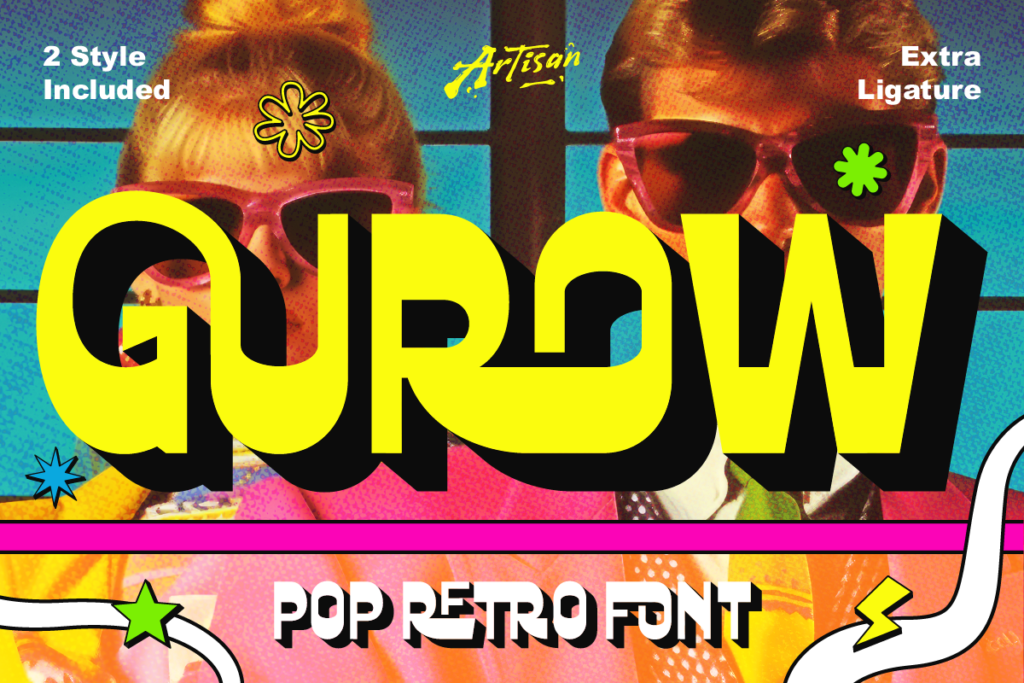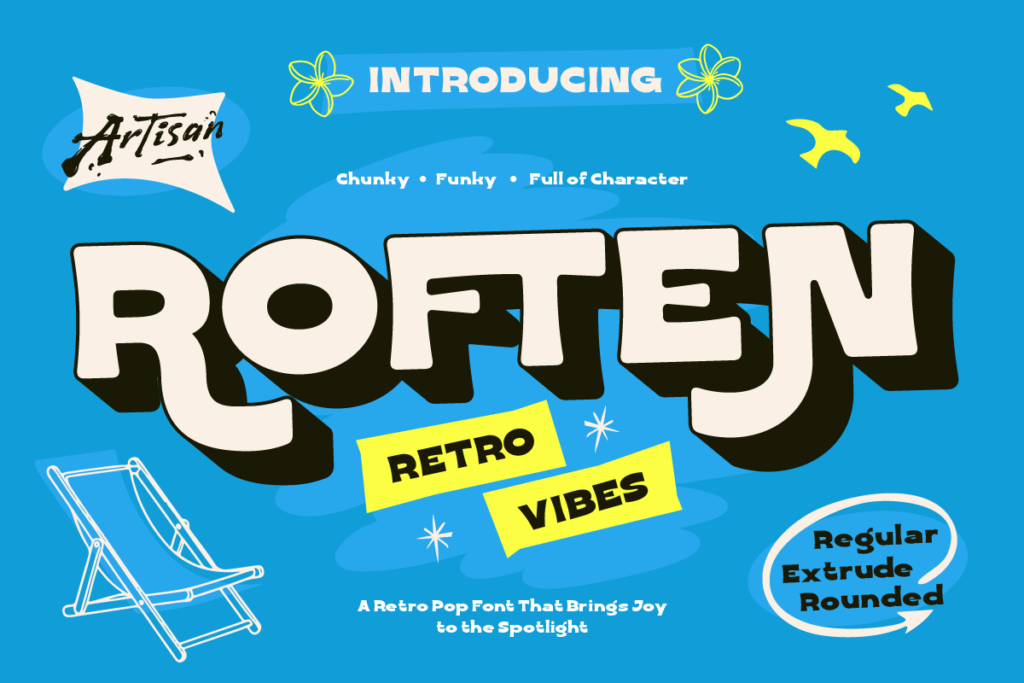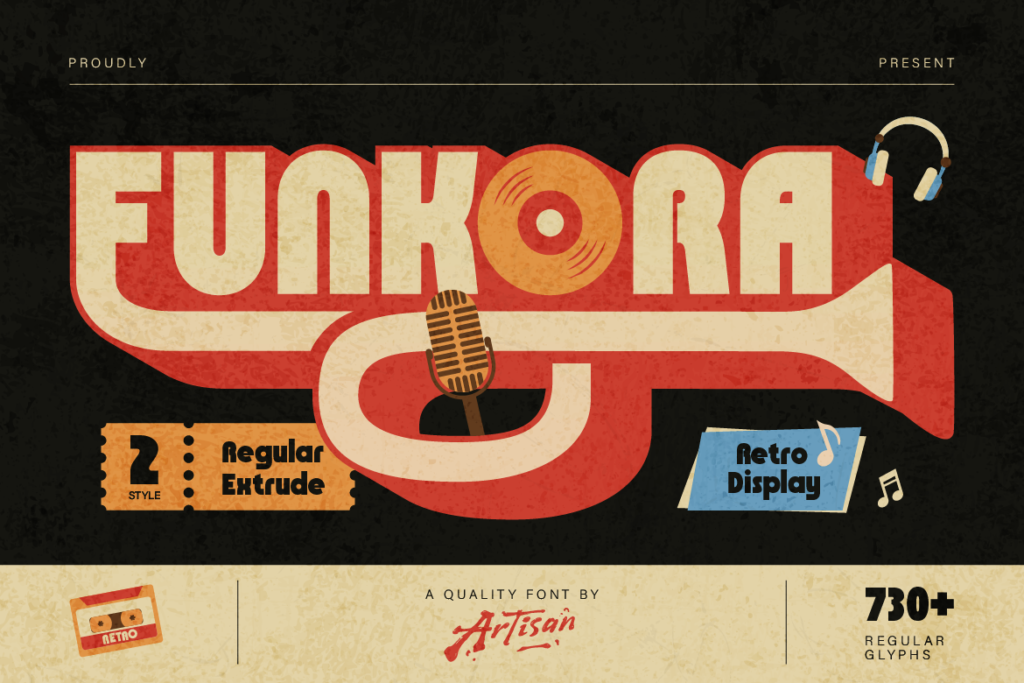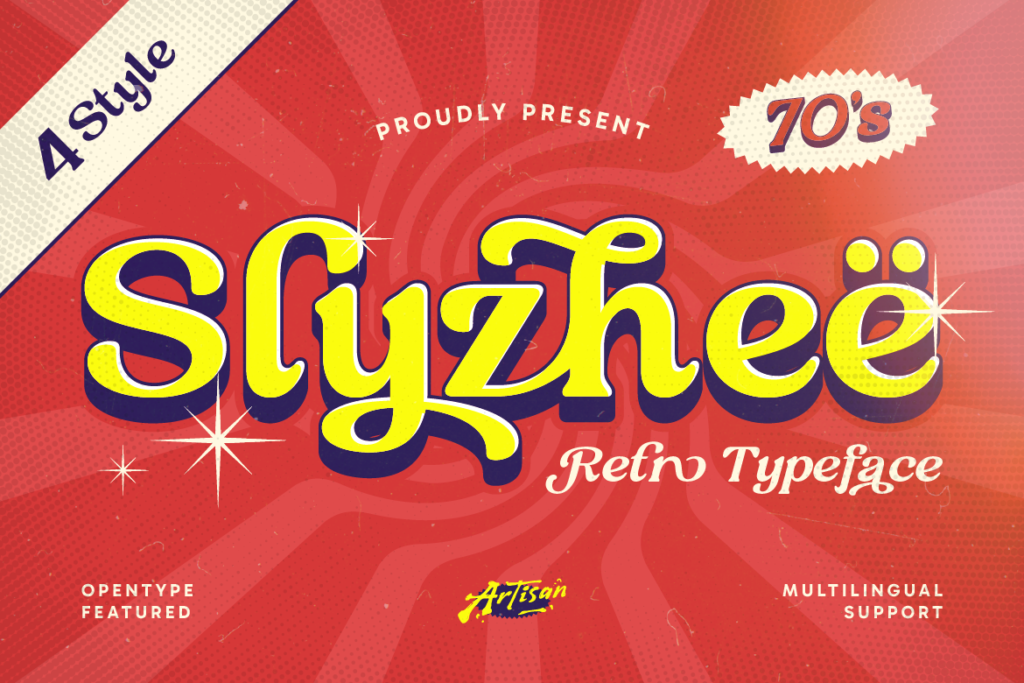
5 Retro & Groovy Pop Fonts from Artisan Font to Bring Back the Good Vibes
There’s a reason retro design keeps coming back, it’s fun, it’s nostalgic, and it instantly adds personality to whatever it touches. Groovy pop fonts are all about bold colors, playful curves, and that feel-good energy from decades past, and they’re a fantastic way to make your design pop (literally).
Here are 5 fonts from Artisan Font to help you channel that retro, groovy charm.
1. Gurow
Gurow is a pop retro font with bold, bouncy letterforms that feel straight out of a vintage postcard or an old film camera ad. It’s fun, nostalgic, and full of personality.
Great for: retro branding, event posters, packaging, and playful social media graphics.
2. Roften
Roften brings that classic retro vibes energy with a bold, extruded look that adds depth and dimension to your headlines. It’s got just enough edge to feel current while still keeping that vintage soul.
Great for: posters, branding, retro-themed merchandise, and bold headline text.
3. Slyzheë
Slyzheë is a 70s-inspired retro typeface with a fun, quirky character. The playful curves and warm personality make it perfect for anything that wants to feel groovy without taking itself too seriously.
Great for: packaging, branding, retro-themed products, and playful editorial design.
4. Funkora
Funkora is a bold, funky display font with serious musical energy, think funk album covers and retro concert posters. It’s got rhythm baked right into the letterforms.
Great for: music branding, event posters, album art, and anything that wants a groovy, upbeat feel.
5. Broteli
Broteli is a circus display font with an ornate, vintage carnival feel. Bold and decorative, it brings a fun, theatrical energy that works beautifully for anything wanting a nostalgic, playful edge.
Great for: event branding, packaging, vintage-themed posters, and playful logos.
Bring on the Nostalgia
Retro design never really goes out of style, it just keeps coming back with a fresh coat of paint. These 5 fonts give you plenty of options to add that groovy, feel-good energy to your next project.